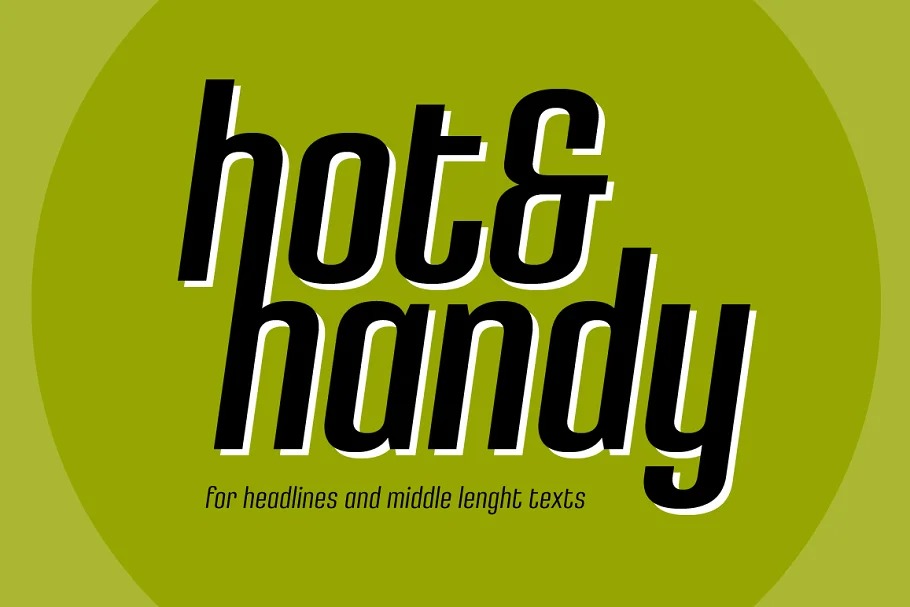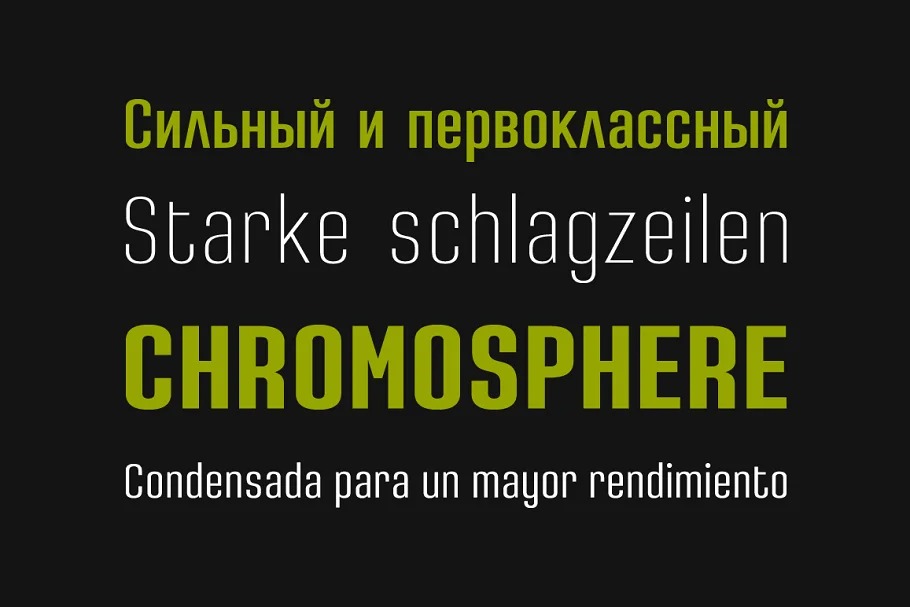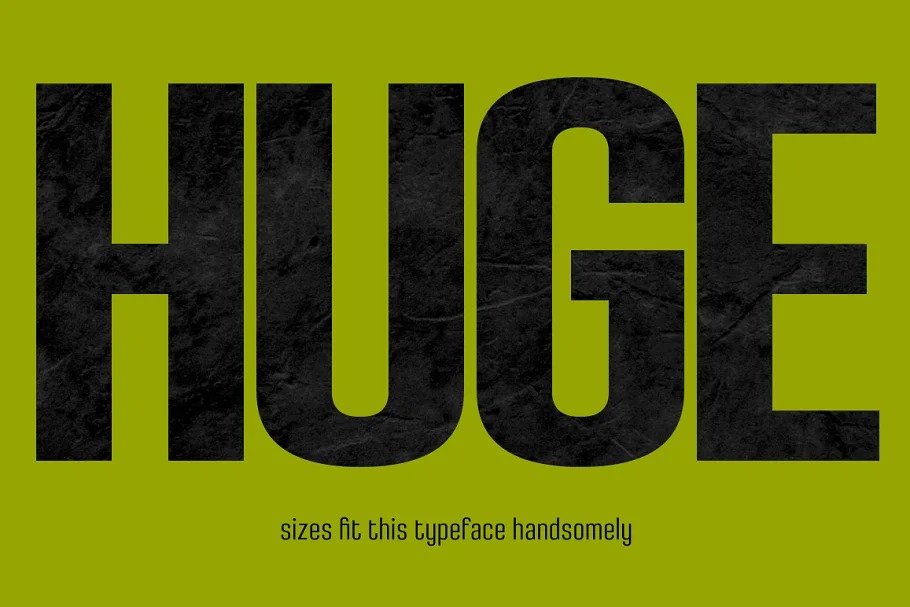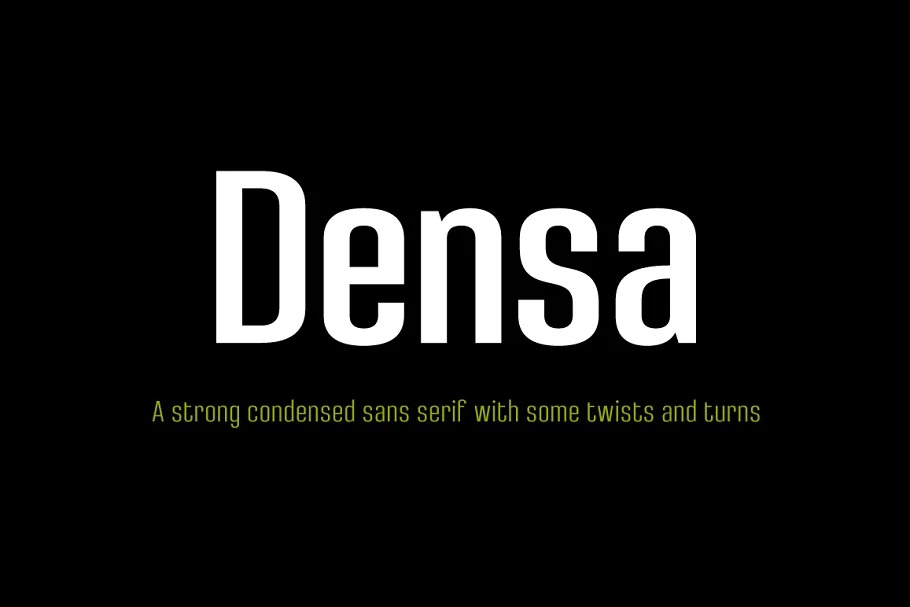
Densa Font Family
Densa Sans Serif Font
This font is a modern grotesk sans serif for display or text purposes. It can be used to create almost all types of design projects like print materials. Its condensed design makes it very effective for space economizing and its display features make it a very interesting option for display usages such as logos, packaging and posters. It has been conceived to be most suitable for headlines and short length text blocks.